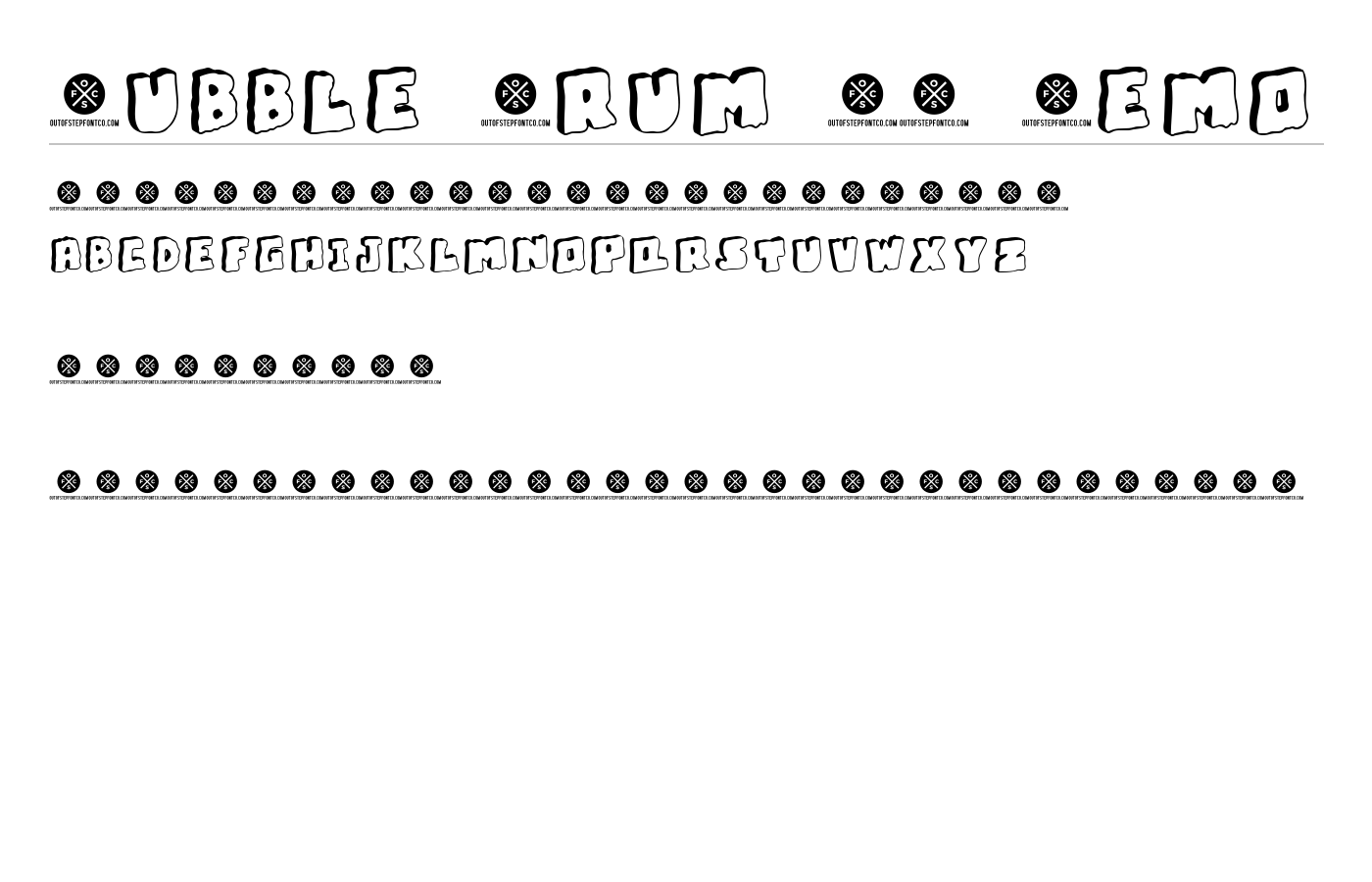
Bubble Frum Demo is a playful, bold display font with a chunky, irregular shape that mimics the look of inflated bubble letters. Its fun and casual style makes it perfect for use in children’s designs, party invitations, and eye-catching headlines where a lively, informal tone is desired. This font adds a whimsical and approachable vibe, making it ideal for branding and projects that want to feel friendly and energetic.
Bubble Frum Demo Font
About Bubble Frum Demo Font
| Font family | Bubble Frum Demo Font |
| Designer | Out Of Step Font Company |